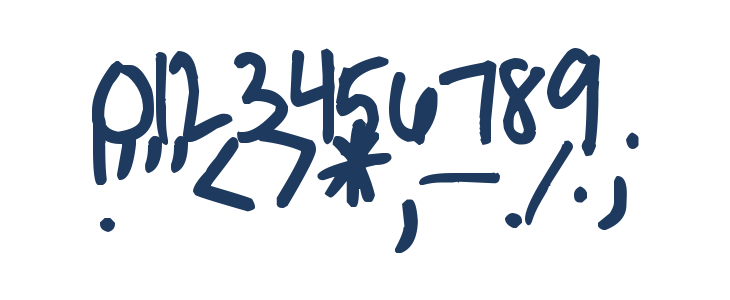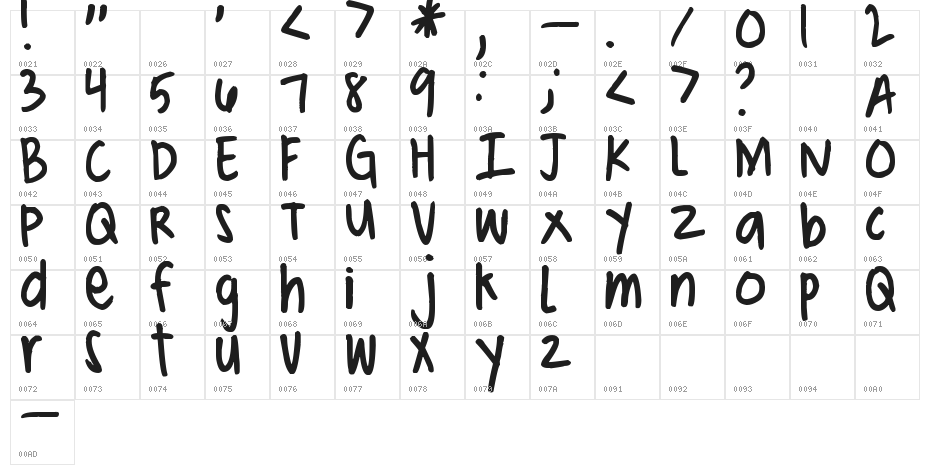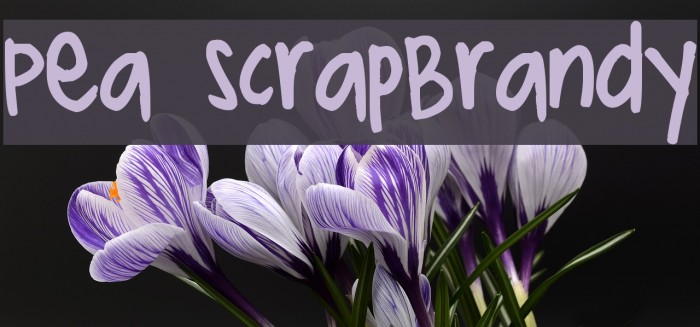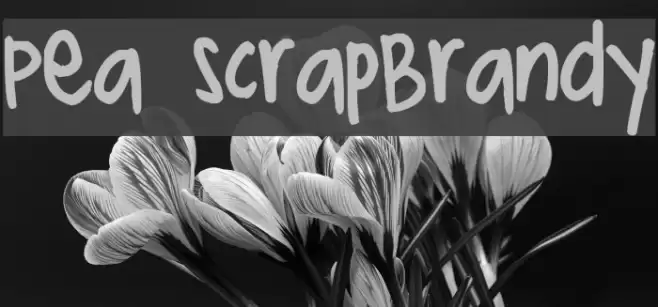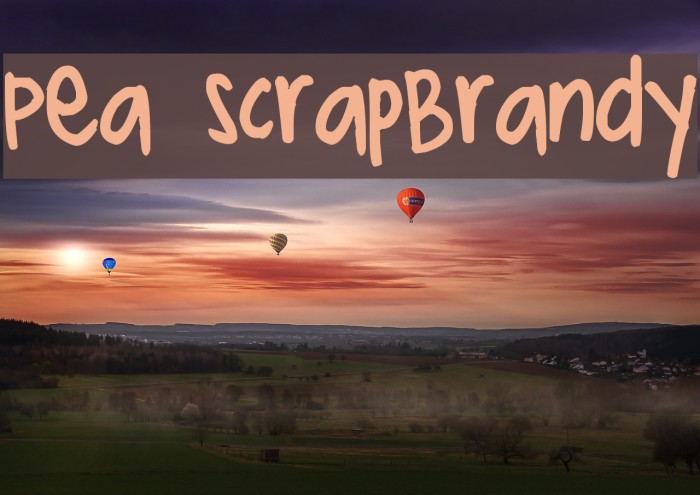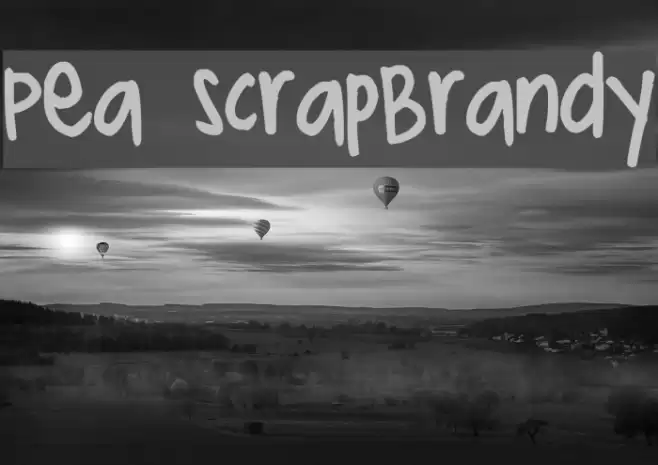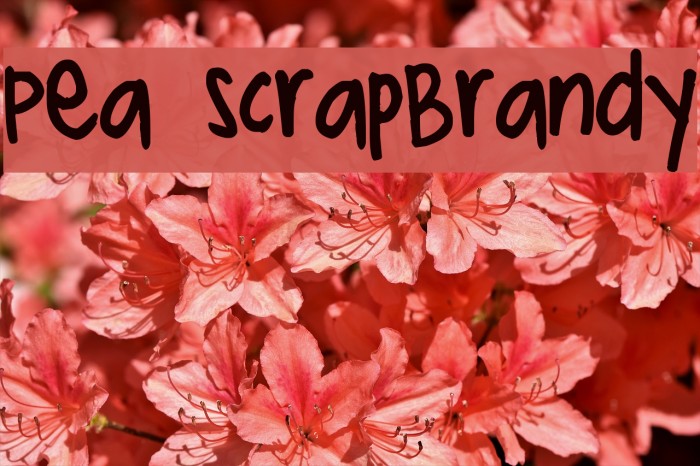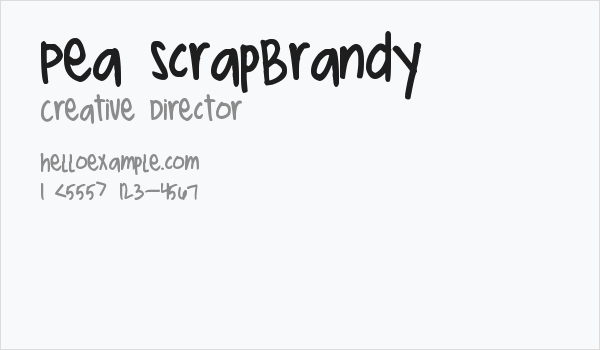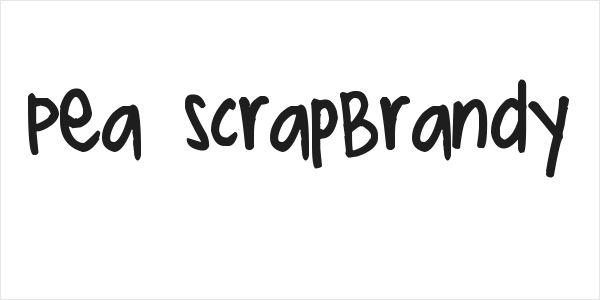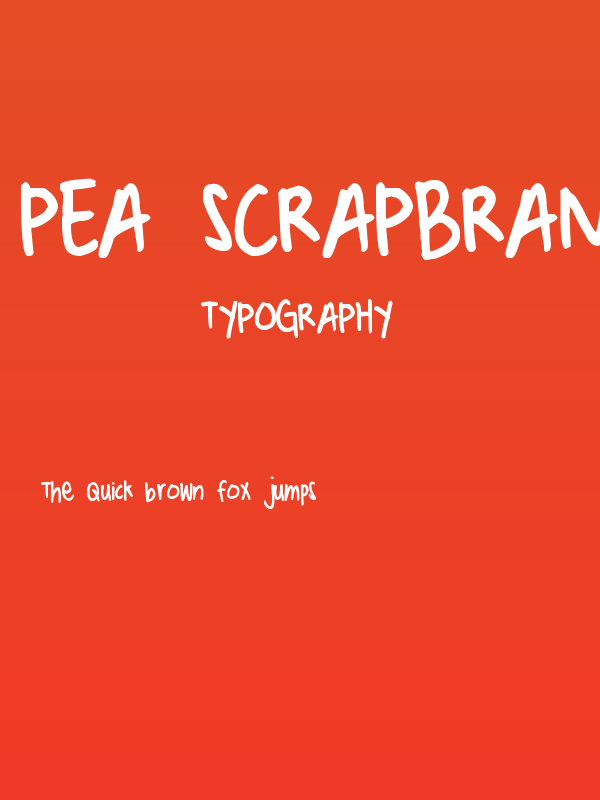
Pea ScrapBrandy Font
Pea ScrapBrandy Description
This playful and casual handwritten font exudes a sense of spontaneity and creativity. The letters are bold and slightly irregular, giving them a lively and informal appearance. The strokes are thick and consistent, with a slight slant that adds to the dynamic feel. The uppercase and lowercase letters maintain a cohesive style, while the numbers and special characters complement the overall look. This font is perfect for projects that require a personal touch or a fun, approachable aesthetic.
| Overall Style | Playful, Casual |
| Proposed Projects | Ideal for greeting cards, children's books, playful branding, and social media graphics. |